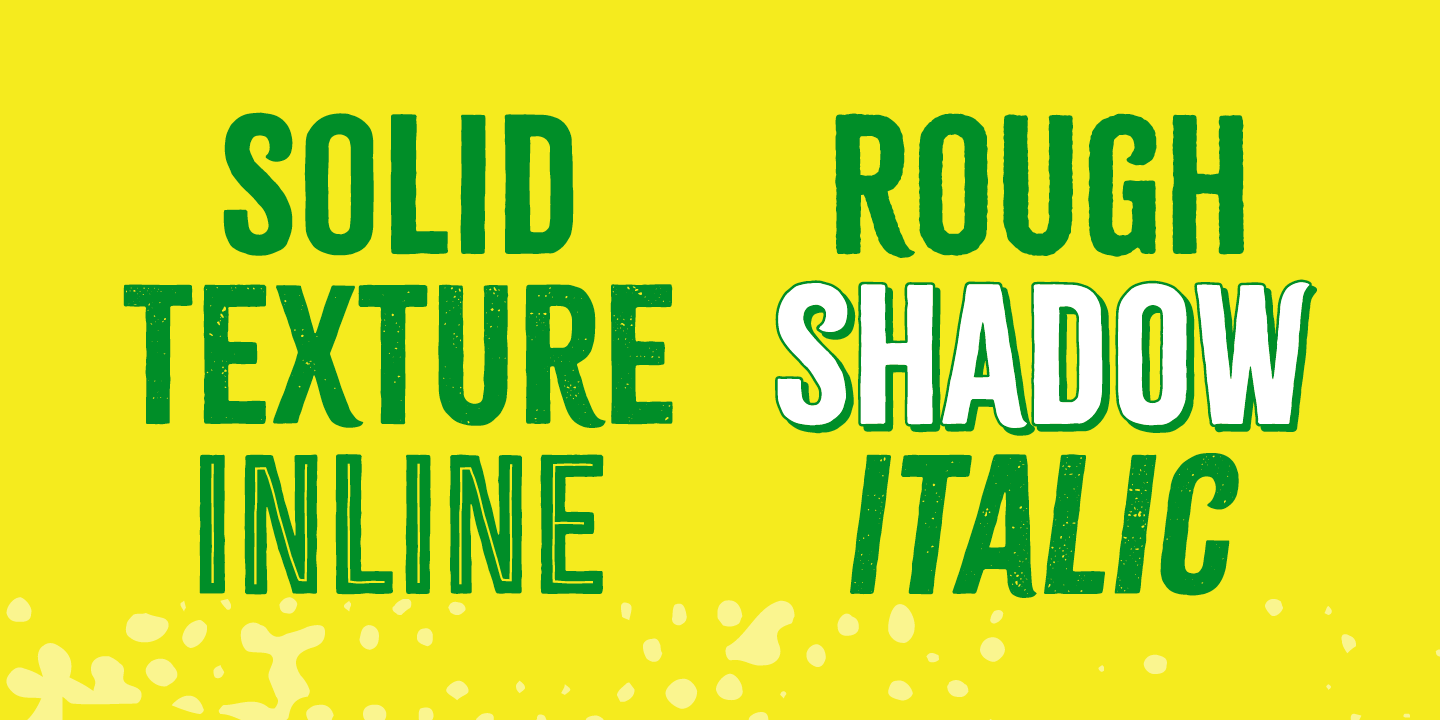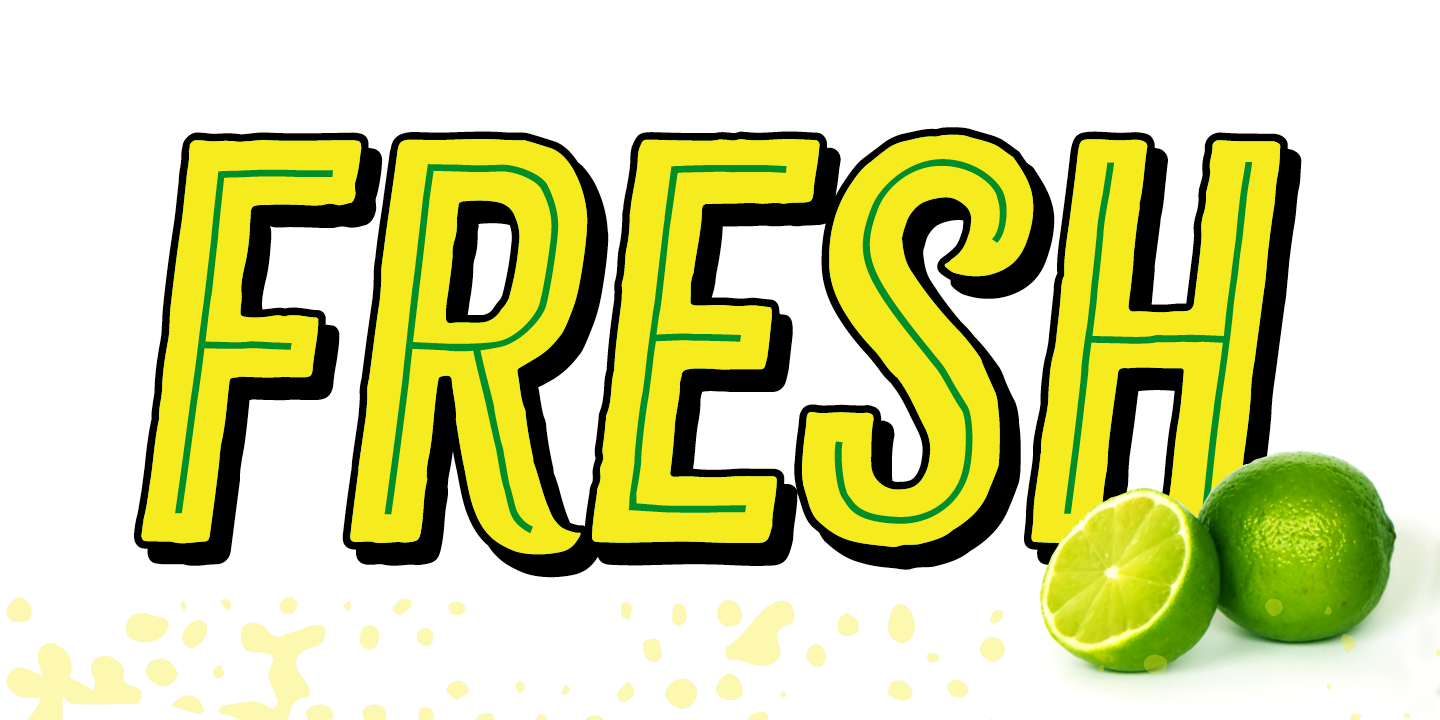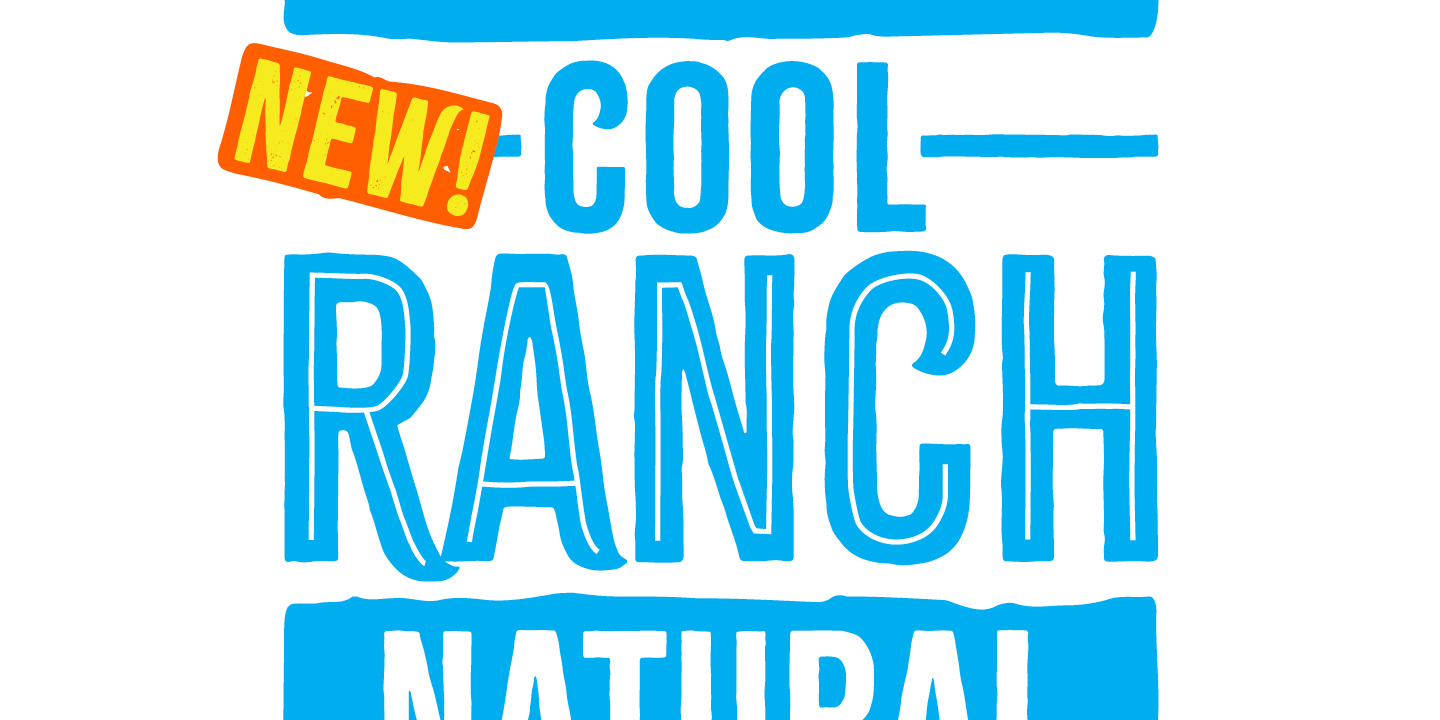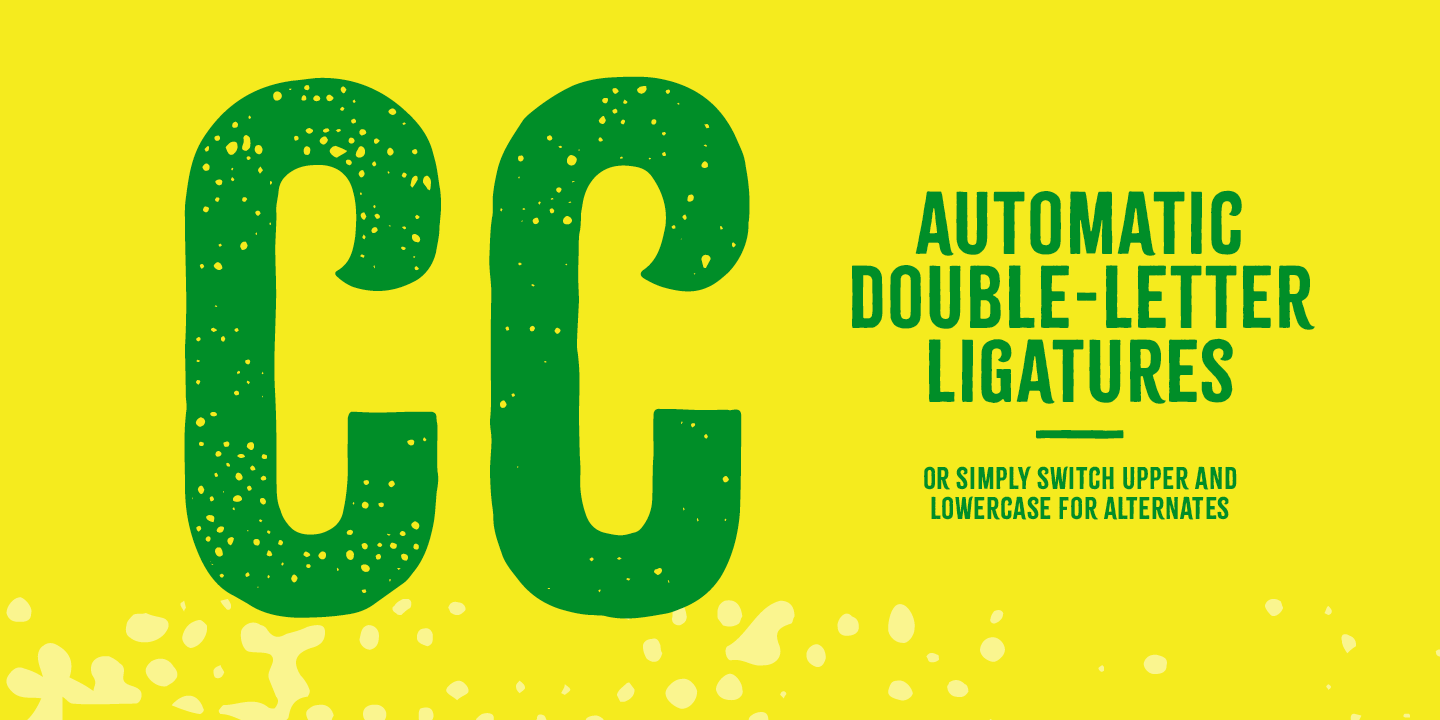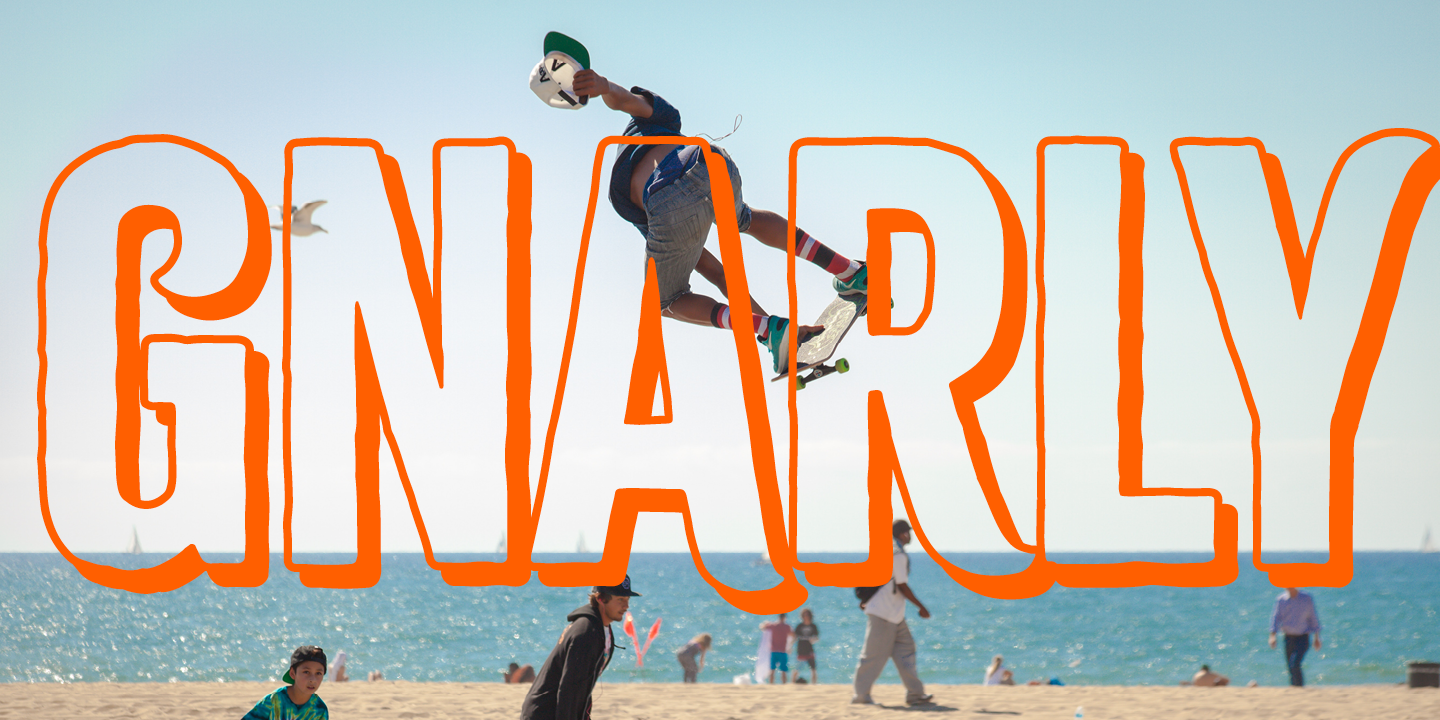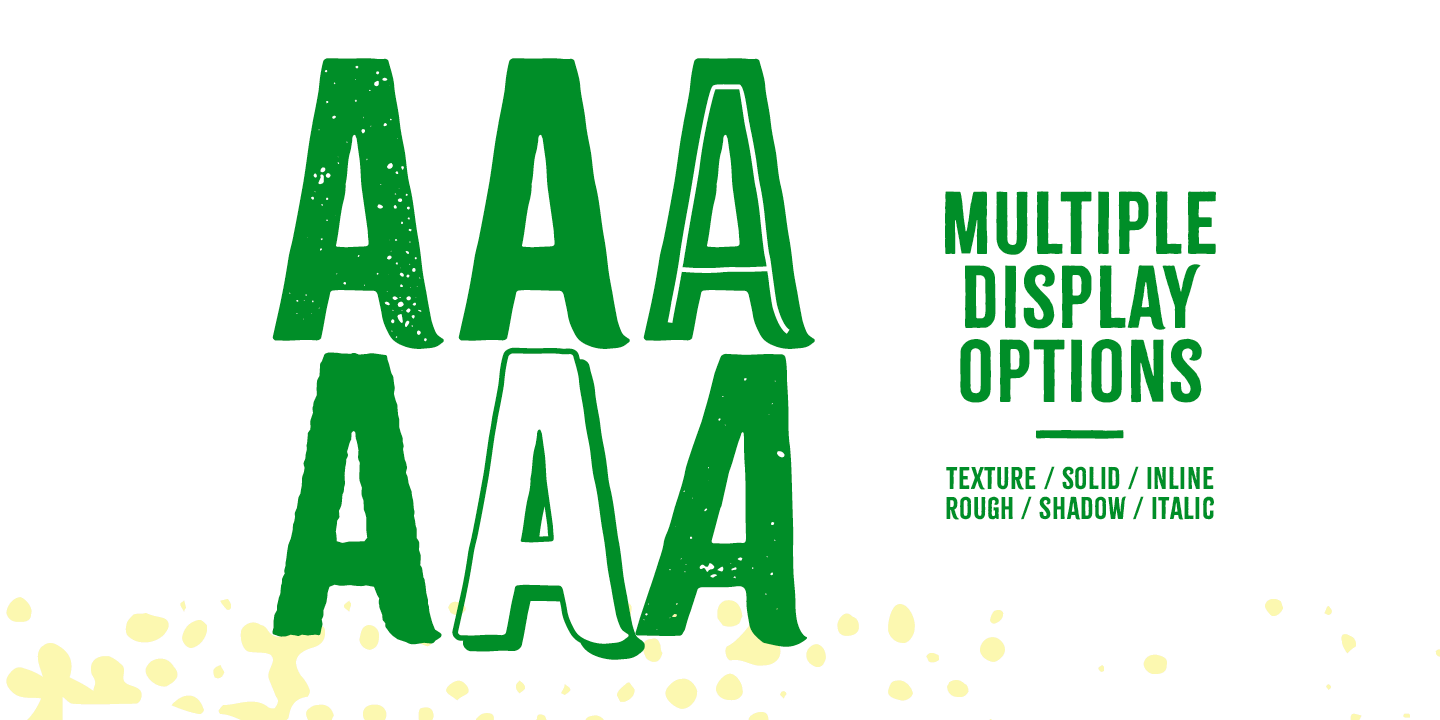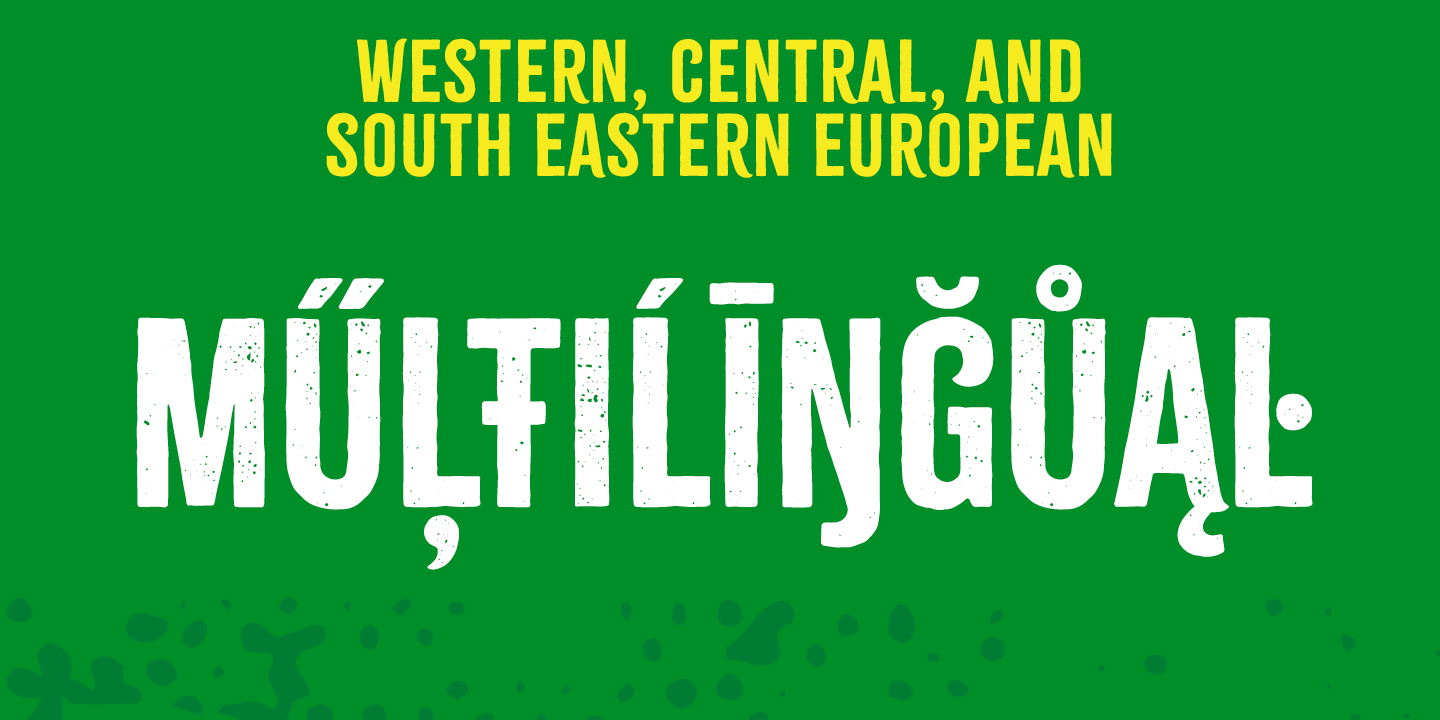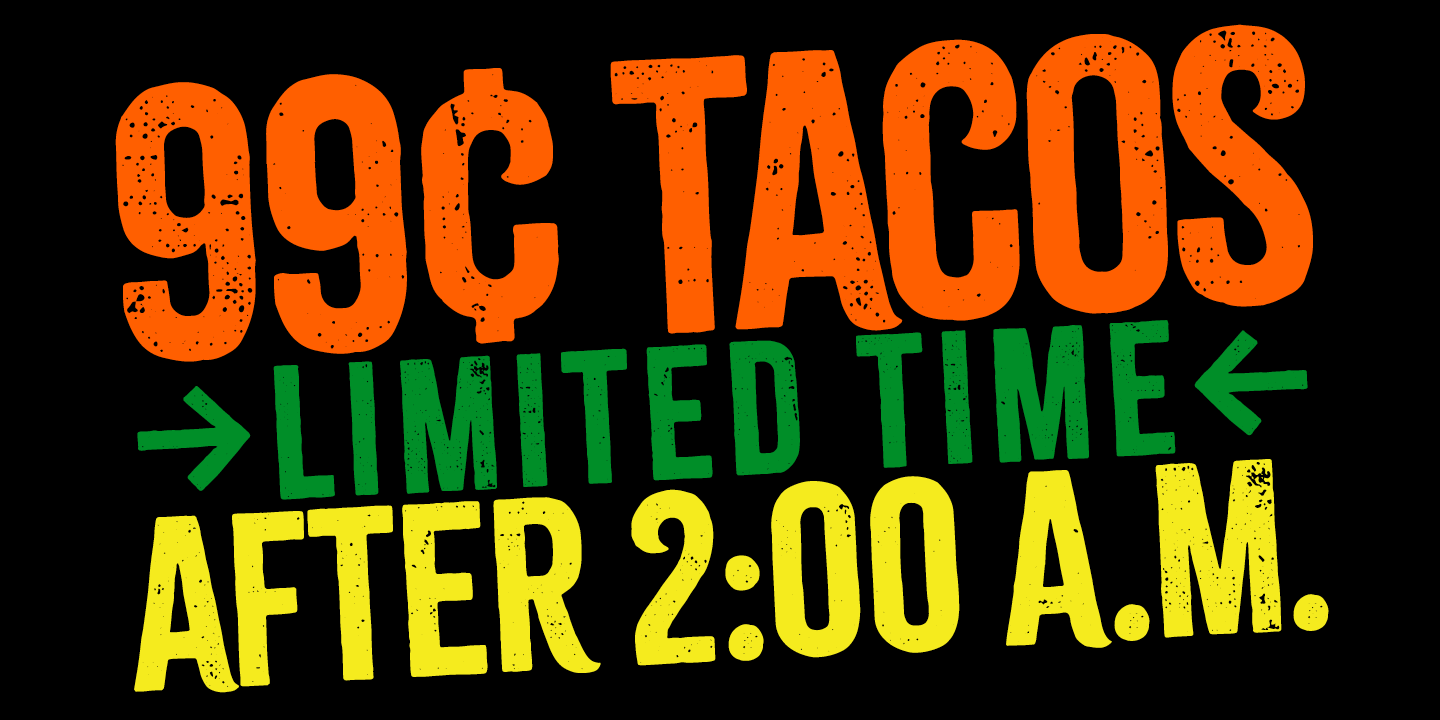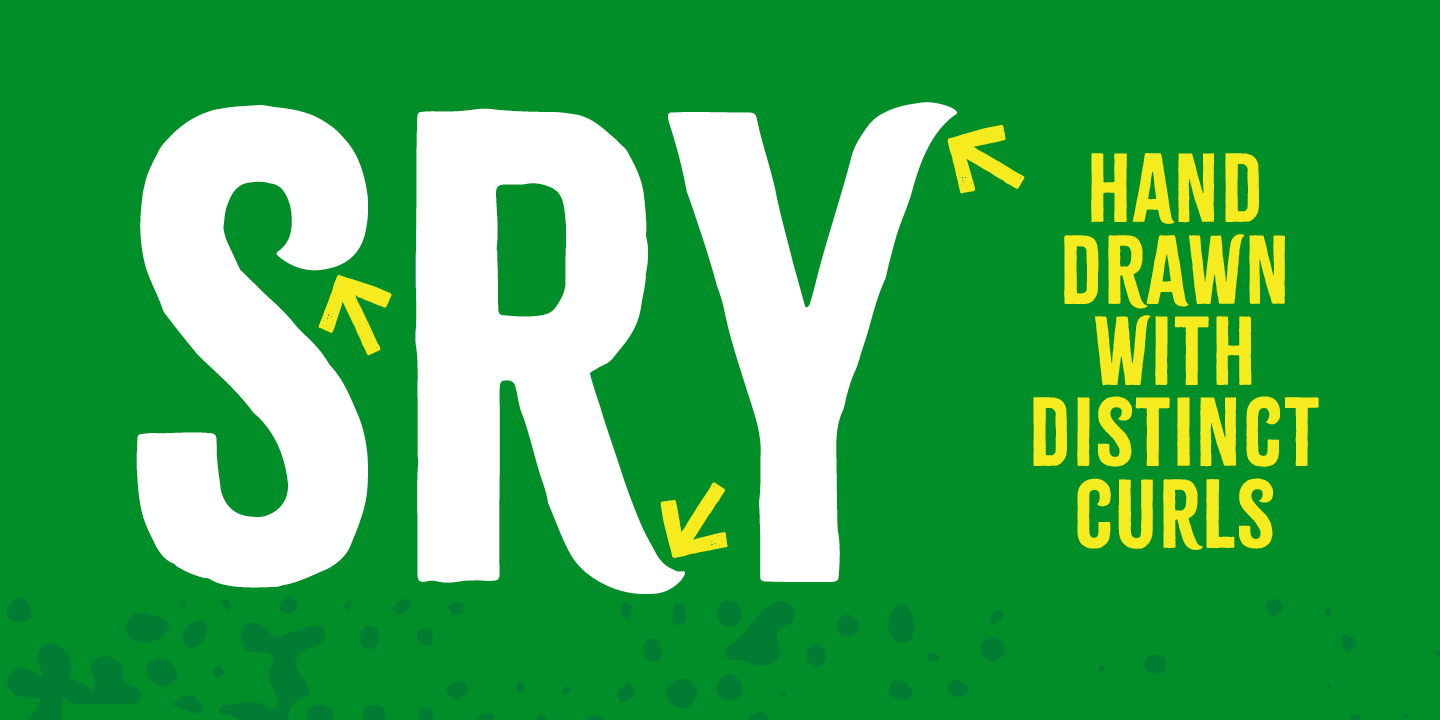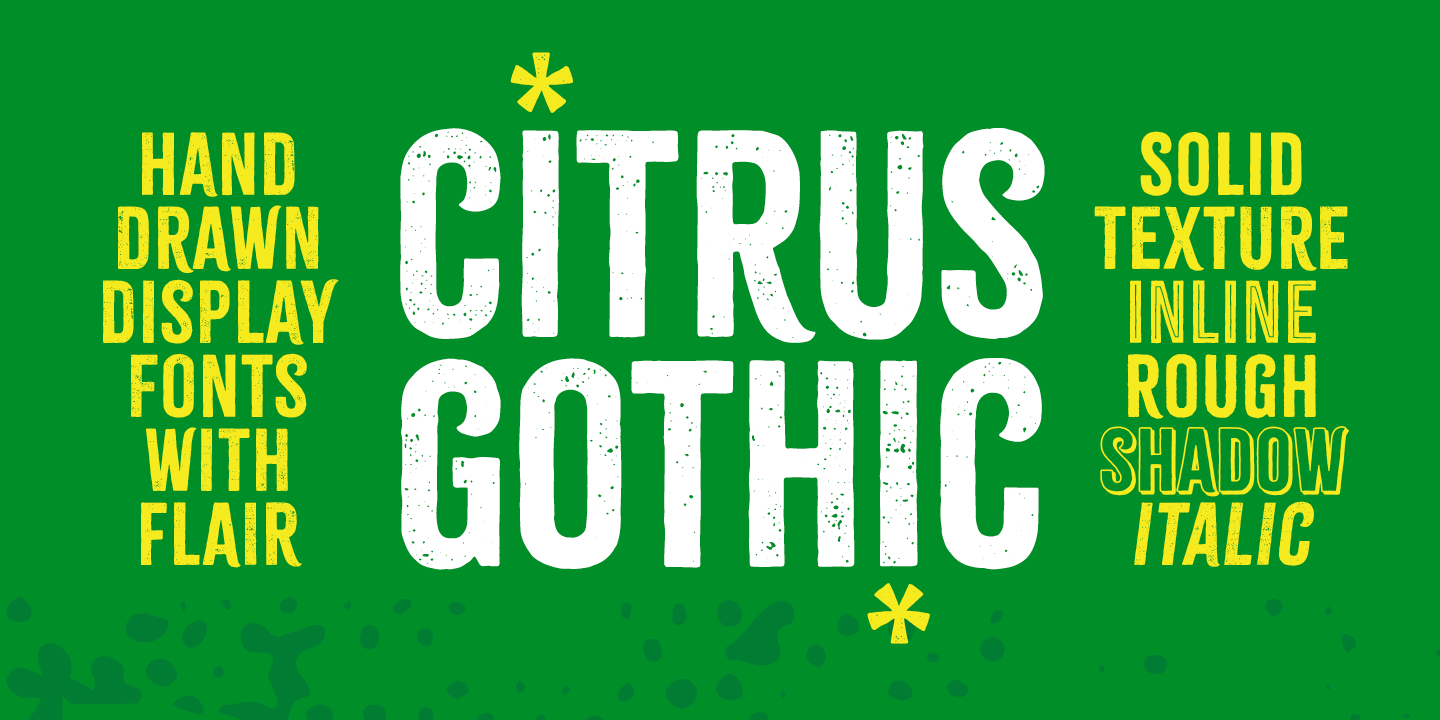
Citrus Gothic is a hand drawn, distinct gothic sans font family featuring solid, texture, inline, rough, shadow, and italic styles. It’s design leans on the classic, condensed gothic appearance but adds flair with the irregular details and curled terminals. An all-caps typeface that is functional and unique, making it great for branding, packaging, headlines, and other display uses. The variety of styles gives multiple options to fit the look you’re going for.
The upper and lowercase characters are each individually drawn so you can switch between them as you typeset for a more authentic, hand drawn appearance. Standard ligatures are also included for double-letters and numbers to automatically help avoid duplicates.